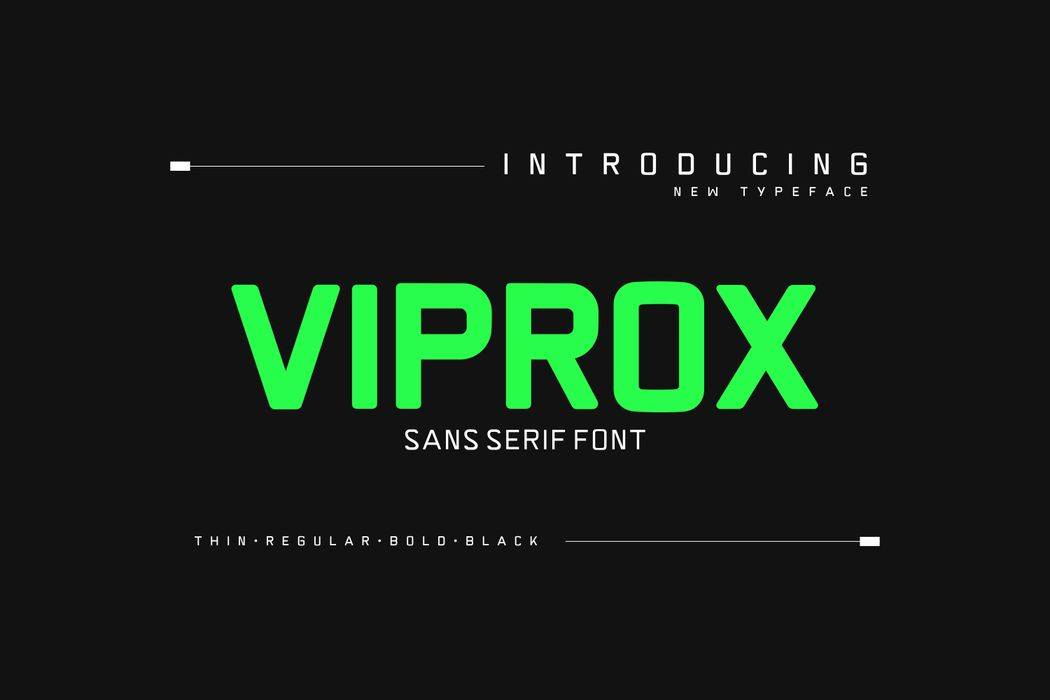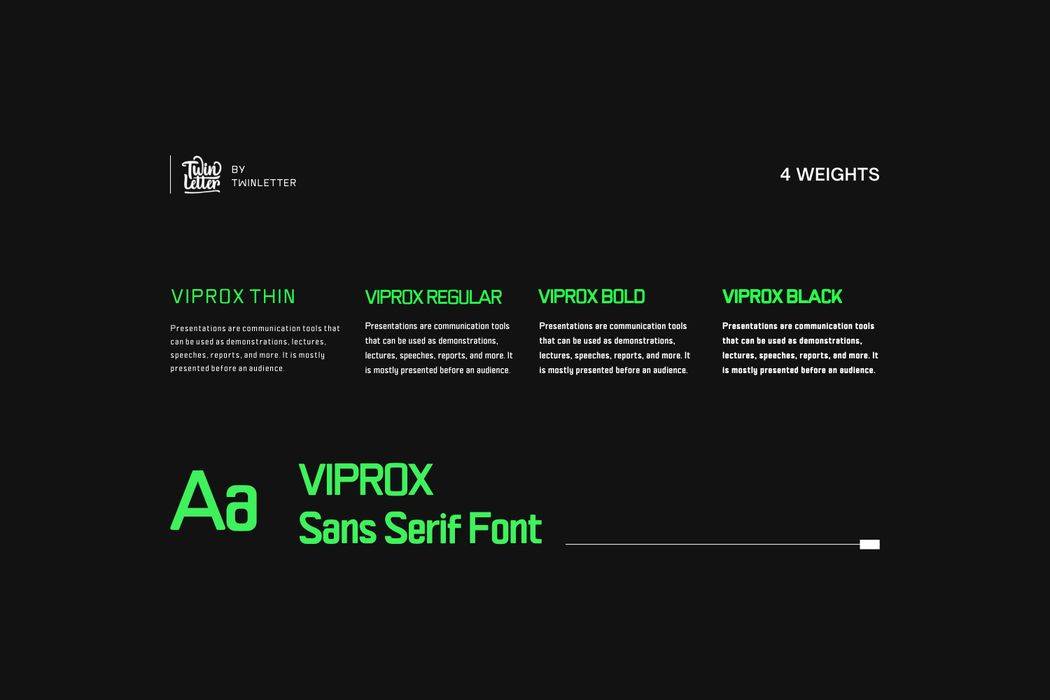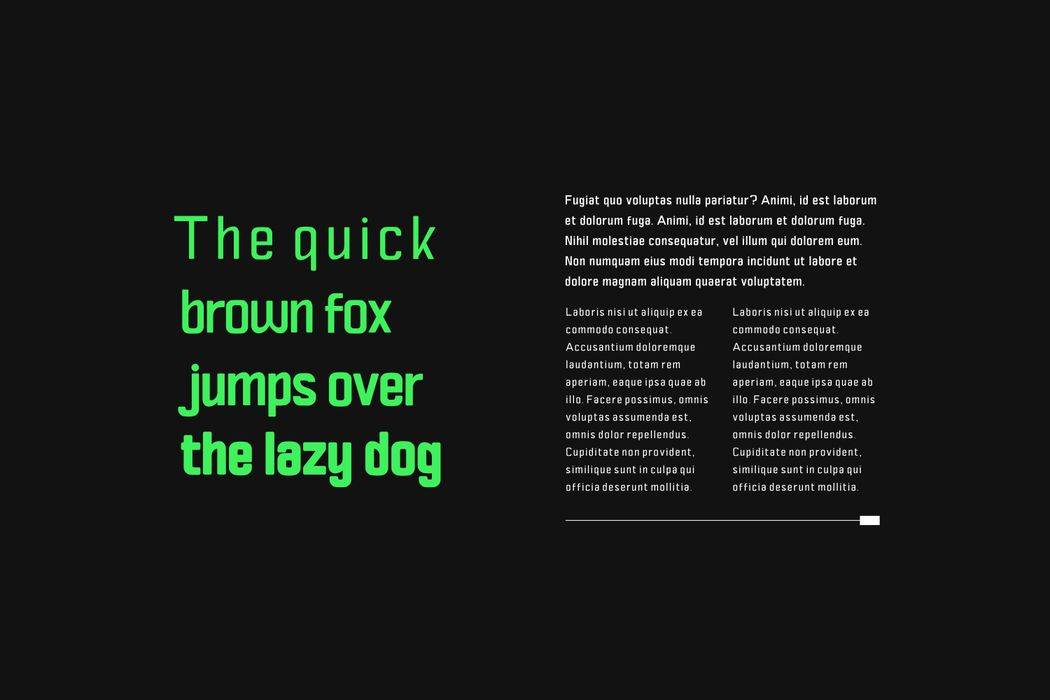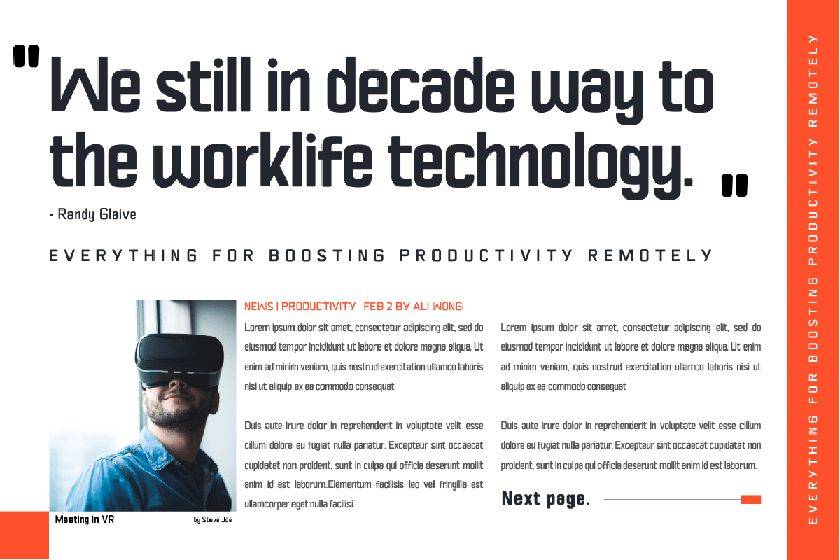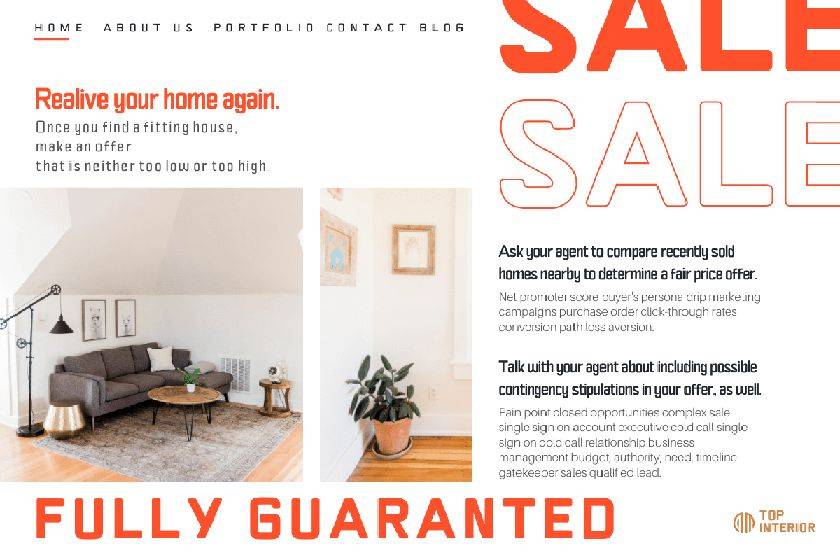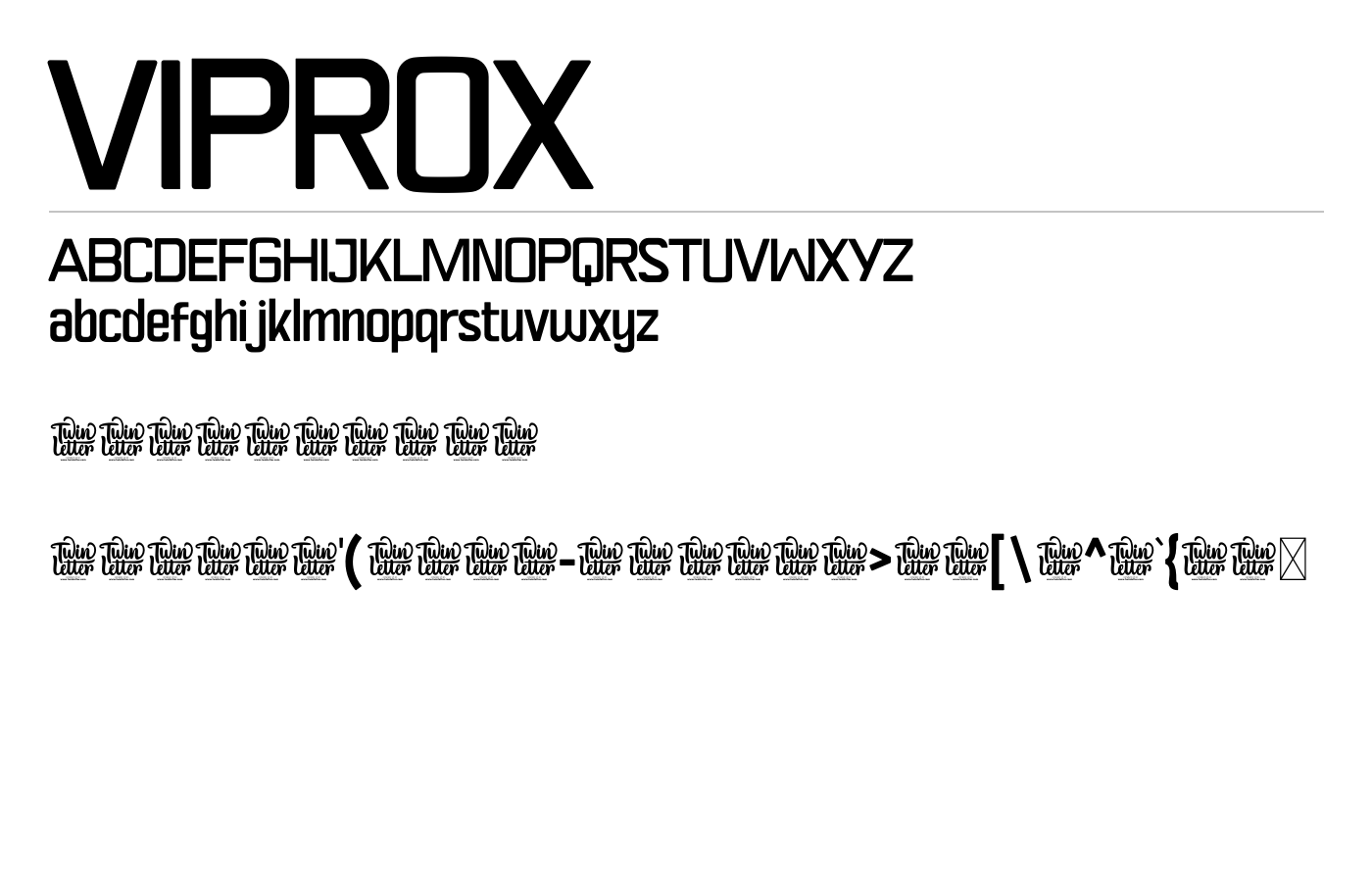
Viprox is a modern, condensed sans serif font with a sleek and geometric design. It features clean, sharp lines with a medium contrast and a high x-height that enhances readability while maintaining a futuristic and technical feel. This font is ideal for contemporary branding, headlines, and digital interfaces where a strong, professional, and cutting-edge appearance is desired.
Viprox Font
About Viprox Font